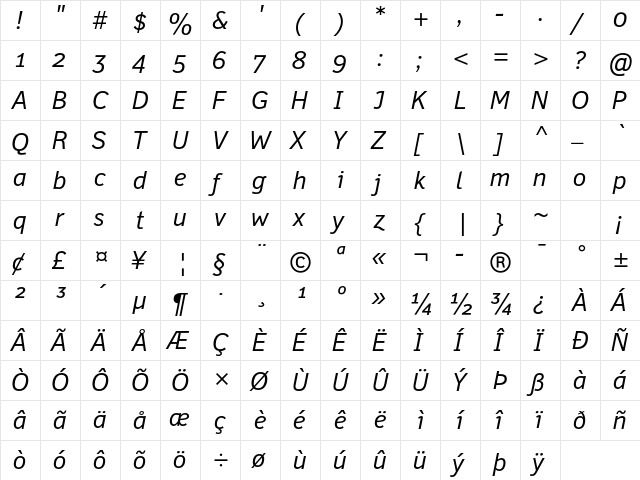
Felbridge Std Italic
Design Context for Felbridge Std Typeface
Felbridge Std takes a measured approach to typography — its balanced proportions and neutral character make it a reliable workhorse for both digital and print work. The slanted form adds forward momentum and visual energy.
Pro Tip: Try Felbridge Std for annotation and caption copy alongside an upright companion — the contrast in angle creates a dynamic but ordered typographic system.